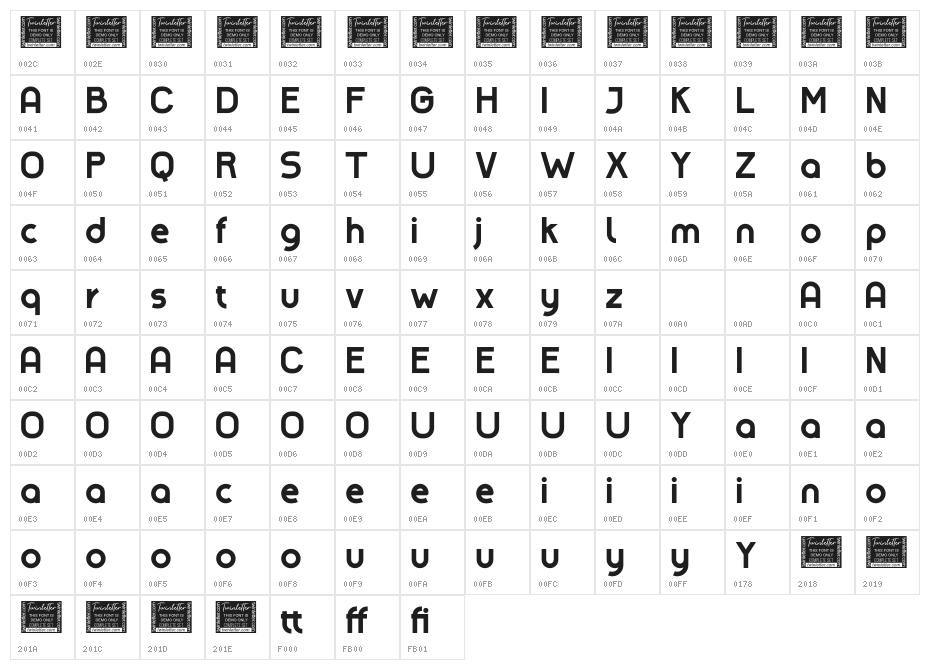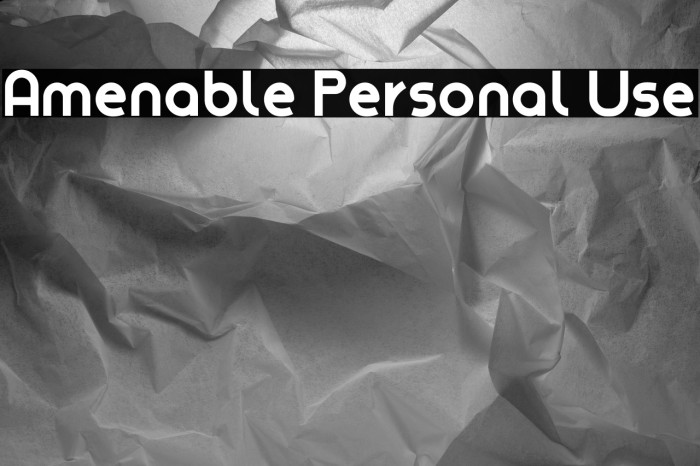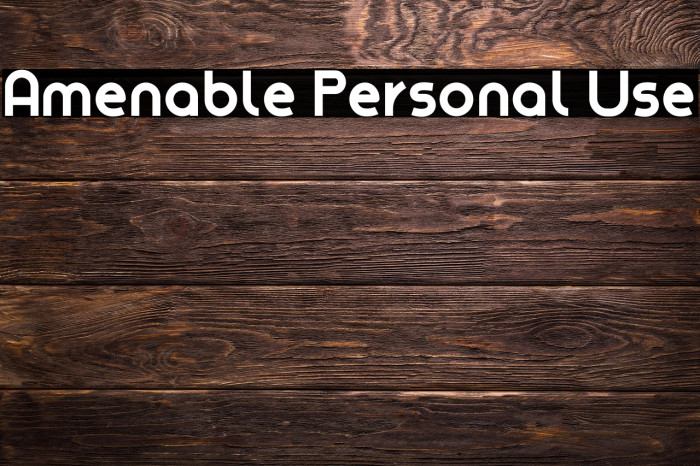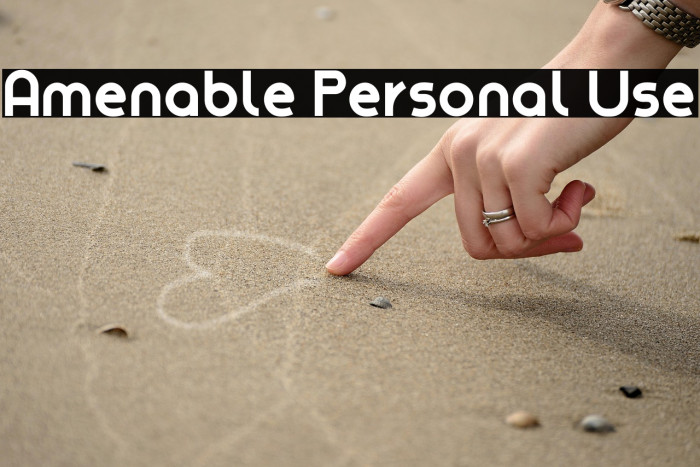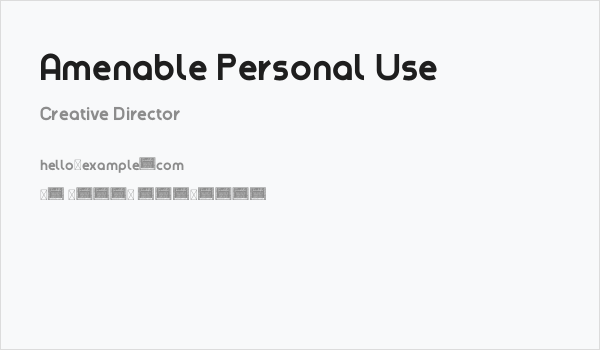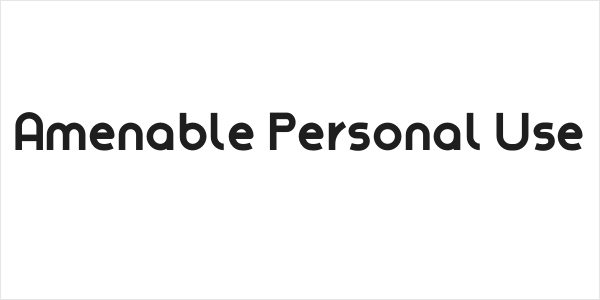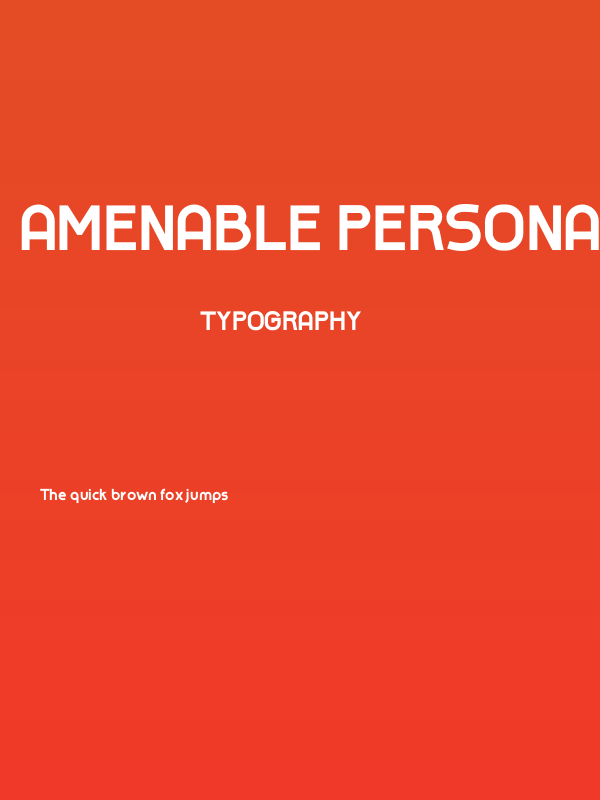
Amenable Personal Use Font
Amenable Personal Use Description
This font features a bold and modern sans-serif style with clean, geometric lines. The uppercase letters are uniform in height with a consistent stroke width, giving a strong and stable appearance. The lowercase letters maintain a similar geometric structure, providing a harmonious balance between the two cases. The numerals are clear and legible, matching the overall boldness of the alphabet. Special characters are designed with the same attention to detail, ensuring they integrate seamlessly with the rest of the font. This font's simplicity and clarity make it versatile for various design applications.